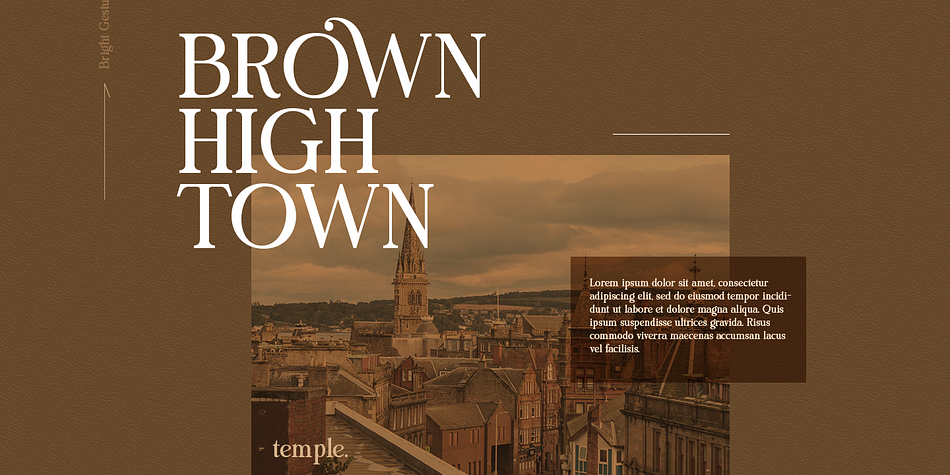
Bright Gesture
Designed by Hendry Juanda, Bright Gesture is a display serif, retro and serif font published by Letterhend Studio.
Introducing, Bright Gesture - A Modern serif font with swashes. The stylistic alternates and ligatures make this font event more unique and stands from the crowd. This font perfectly made to be applied especially in logo, and the other various formal forms such as invitations, labels, logos, magazines, books, greeting / wedding cards, packaging, fashion, make up, stationery, novels, labels or any type of advertising purpose.
- uppercase & lowercase
- numbers and punctuation
- multilingual
- alternates, swashes & ligatures
Styles Display Serif, Retro, Serif